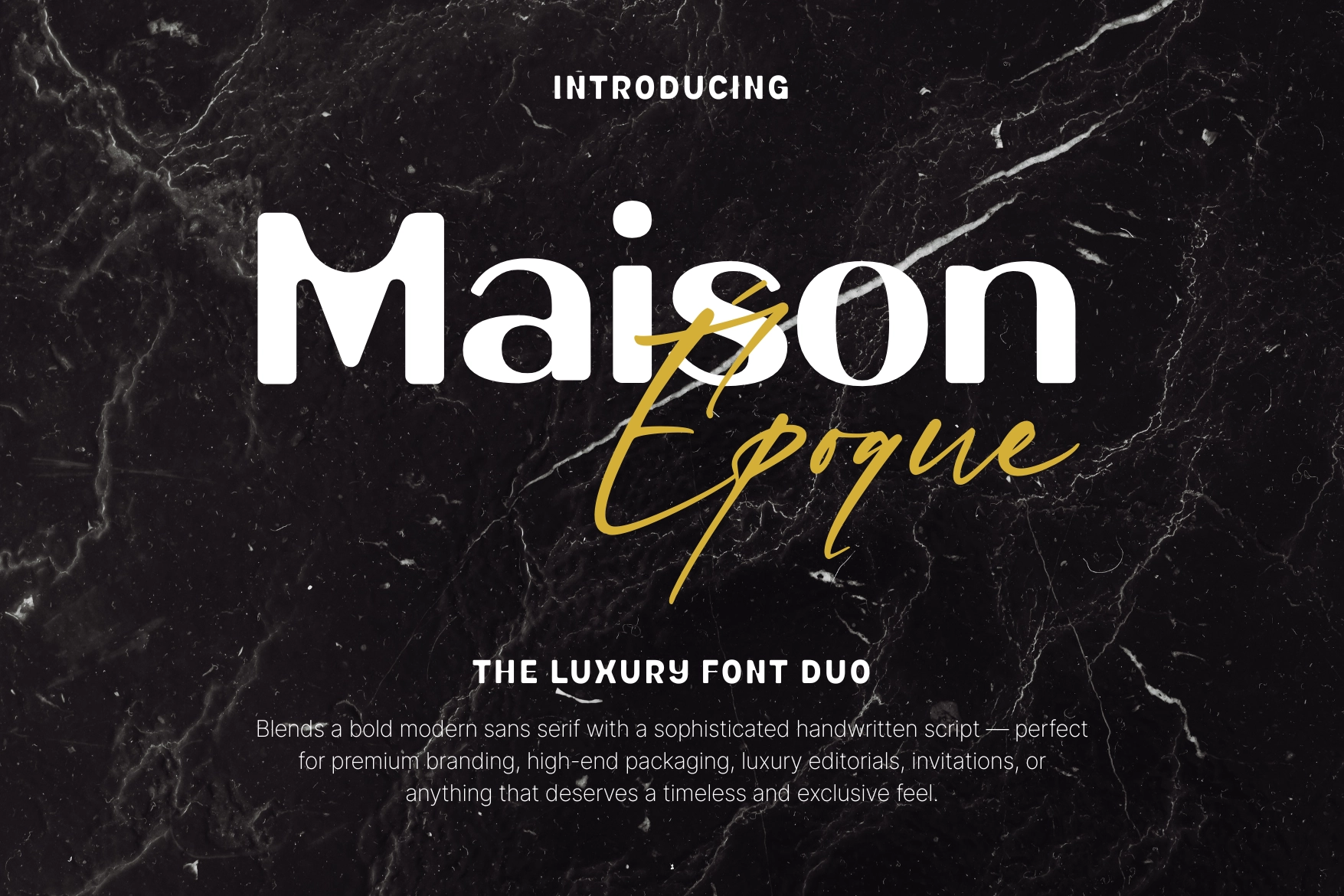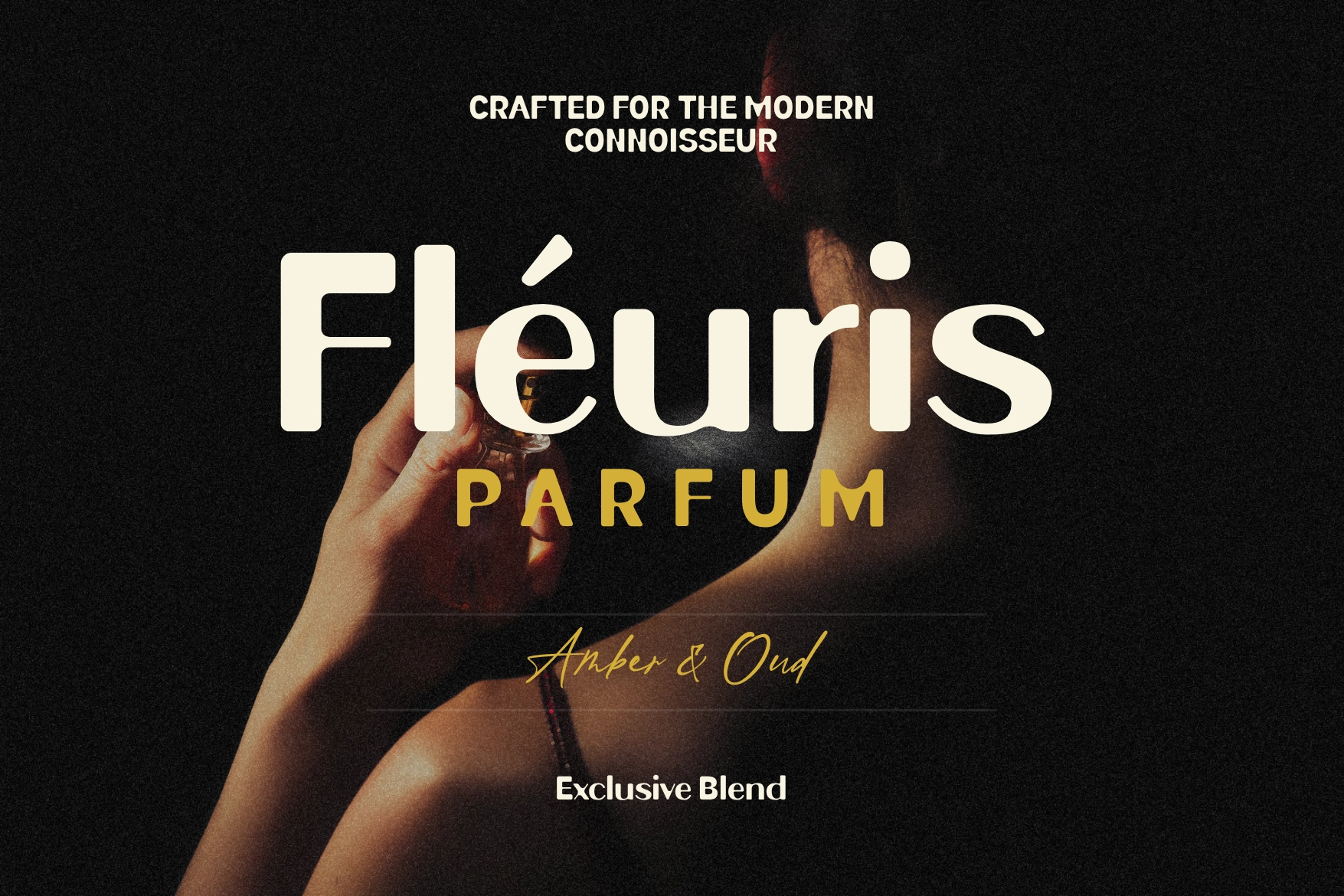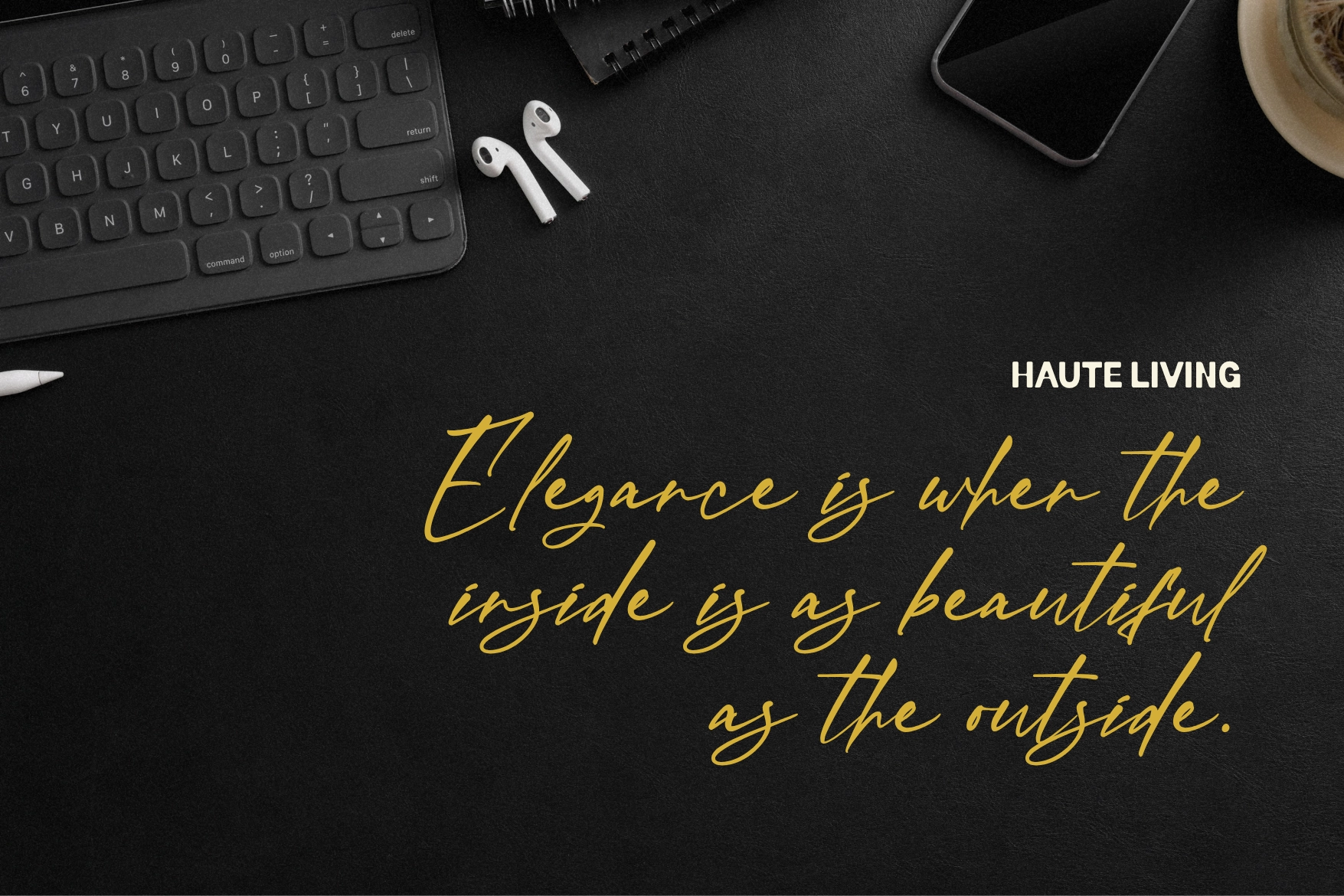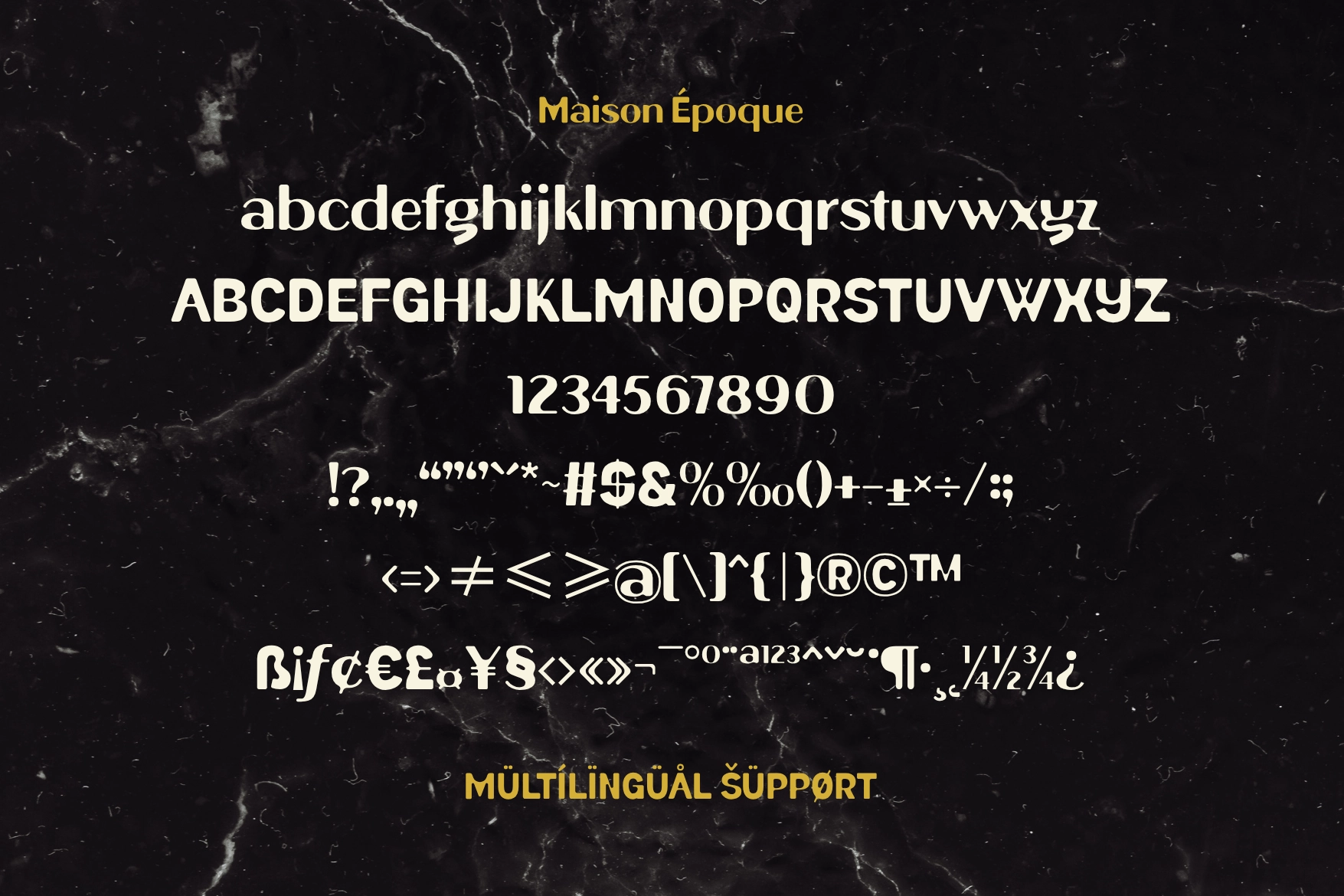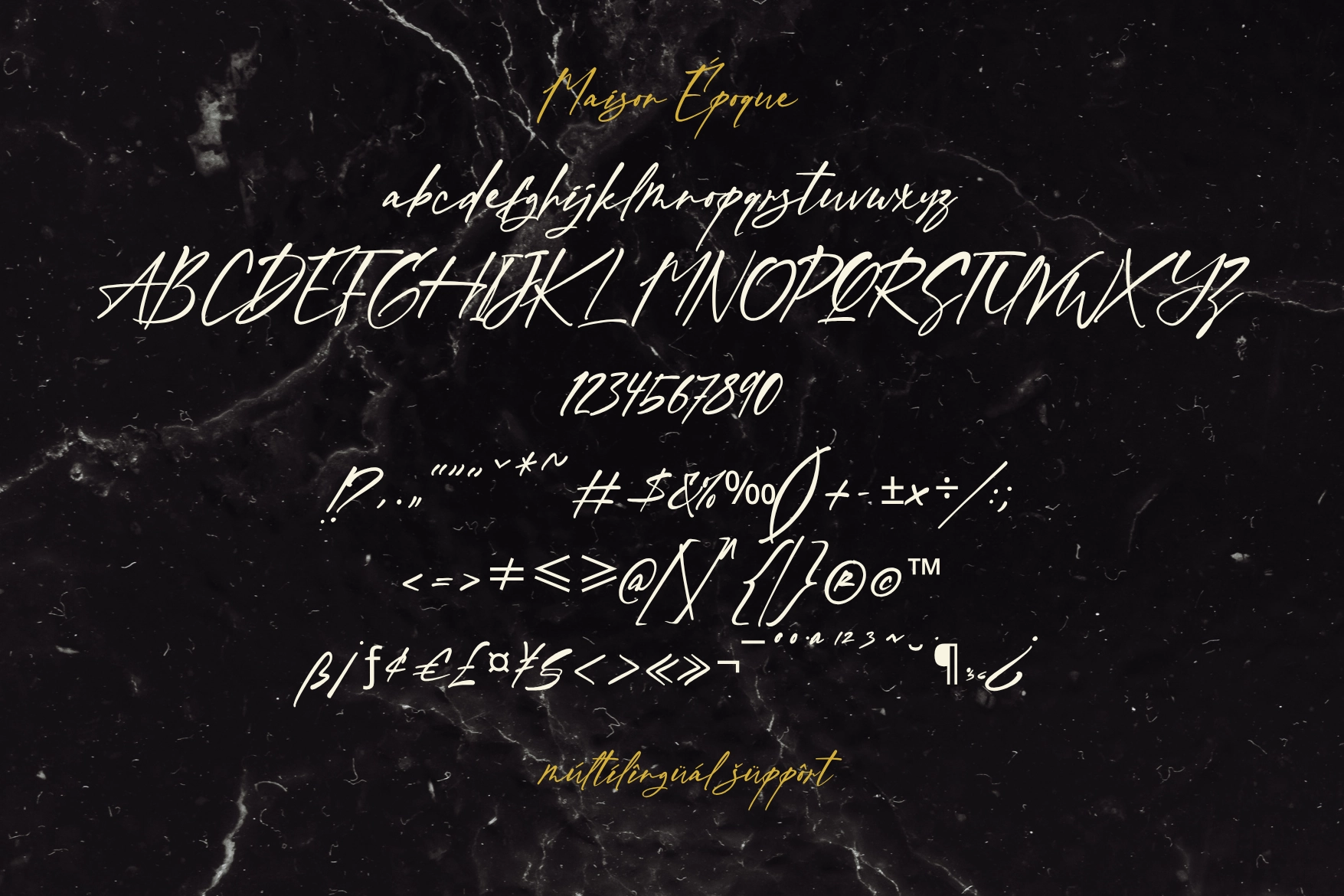
Maison Époque – The Luxury Font Duo
Step into timeless sophistication with Maison Époque, a refined luxury font duo that blends classic serif elegance with modern sans minimalism.
Inspired by vintage Parisian editorial design and Art Deco charm, Maison Époque evokes the essence of high-end fashion magazines, boutique branding, and elegant packaging. Each character is crafted with precision — where heritage meets modern luxury.
Whether paired together or used individually, this duo elevates any design into a statement of style and distinction.
Create an aura of elegance and timeless appeal with Maison Époque – The Luxury Font Duo — where modern minimalism meets classic grace.